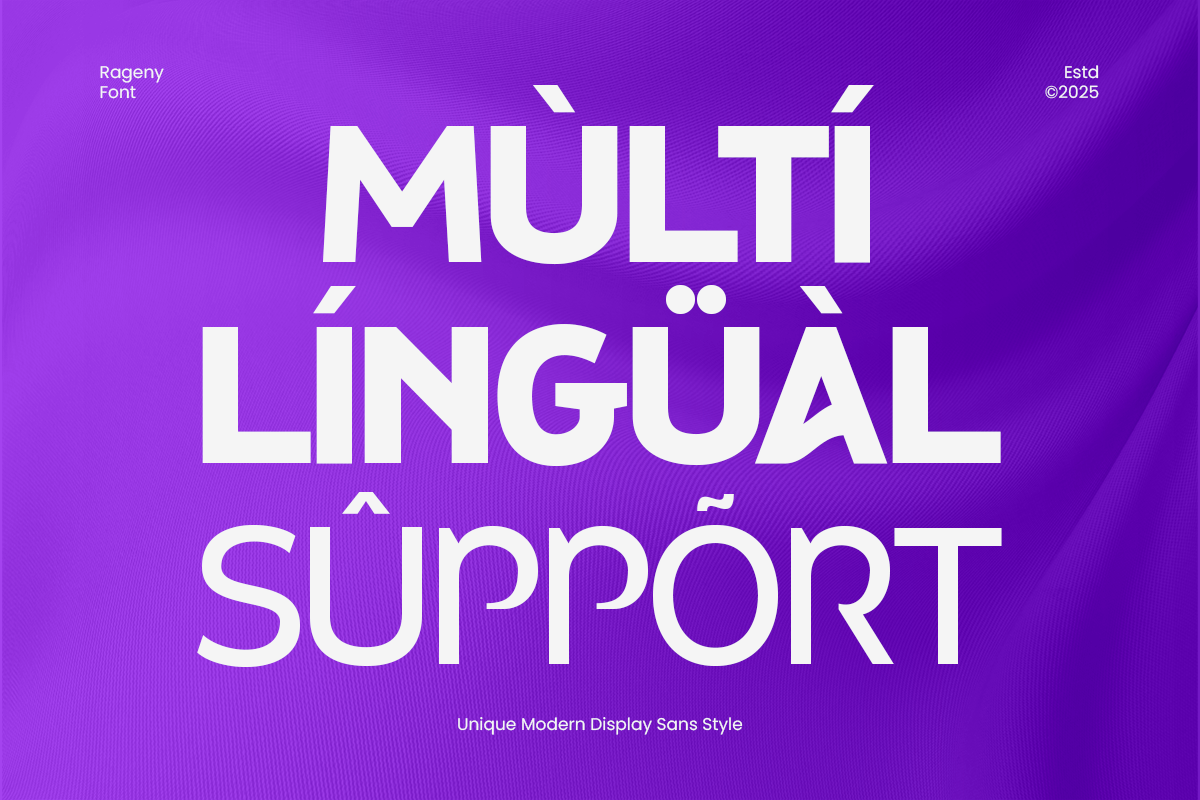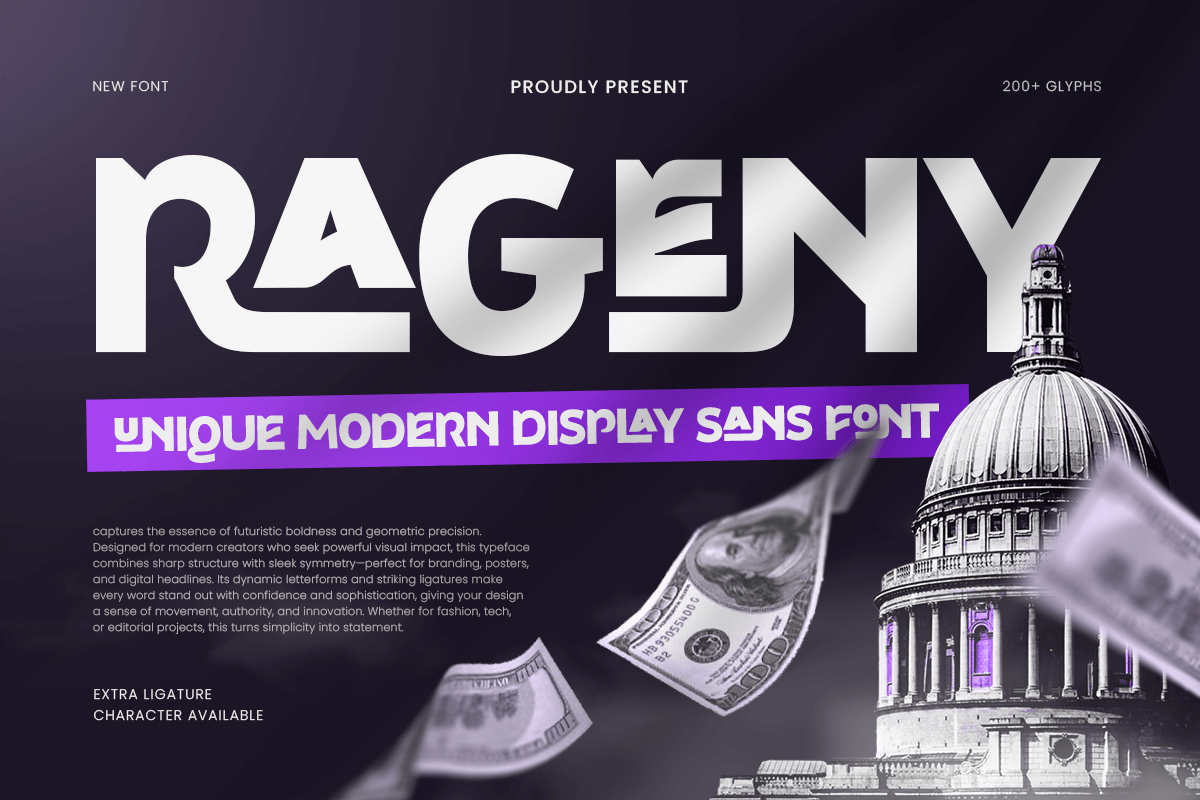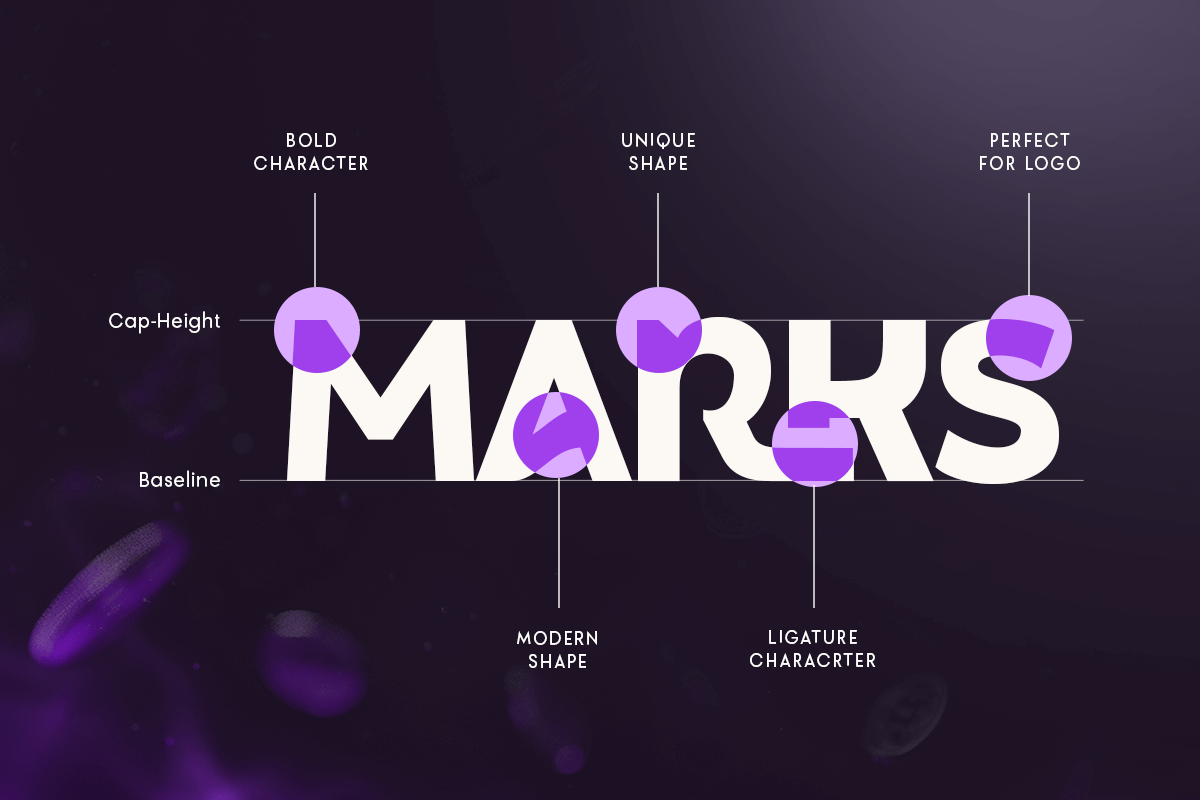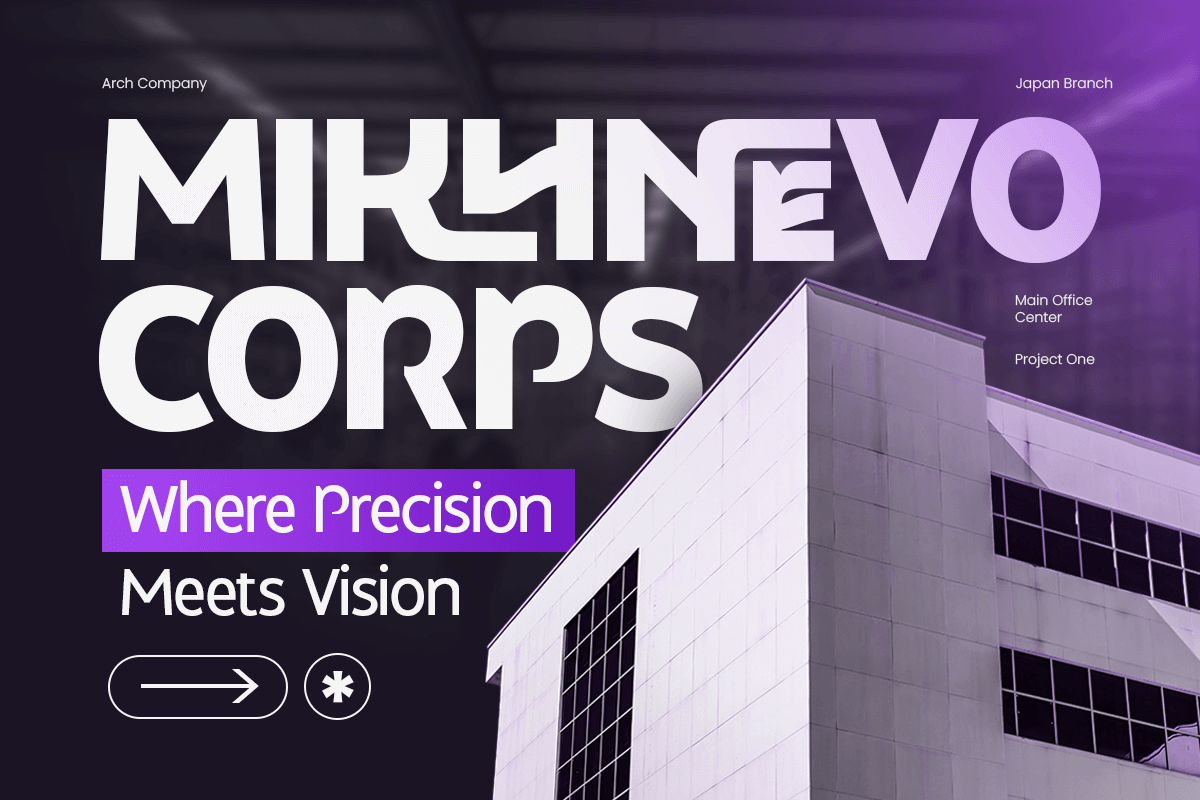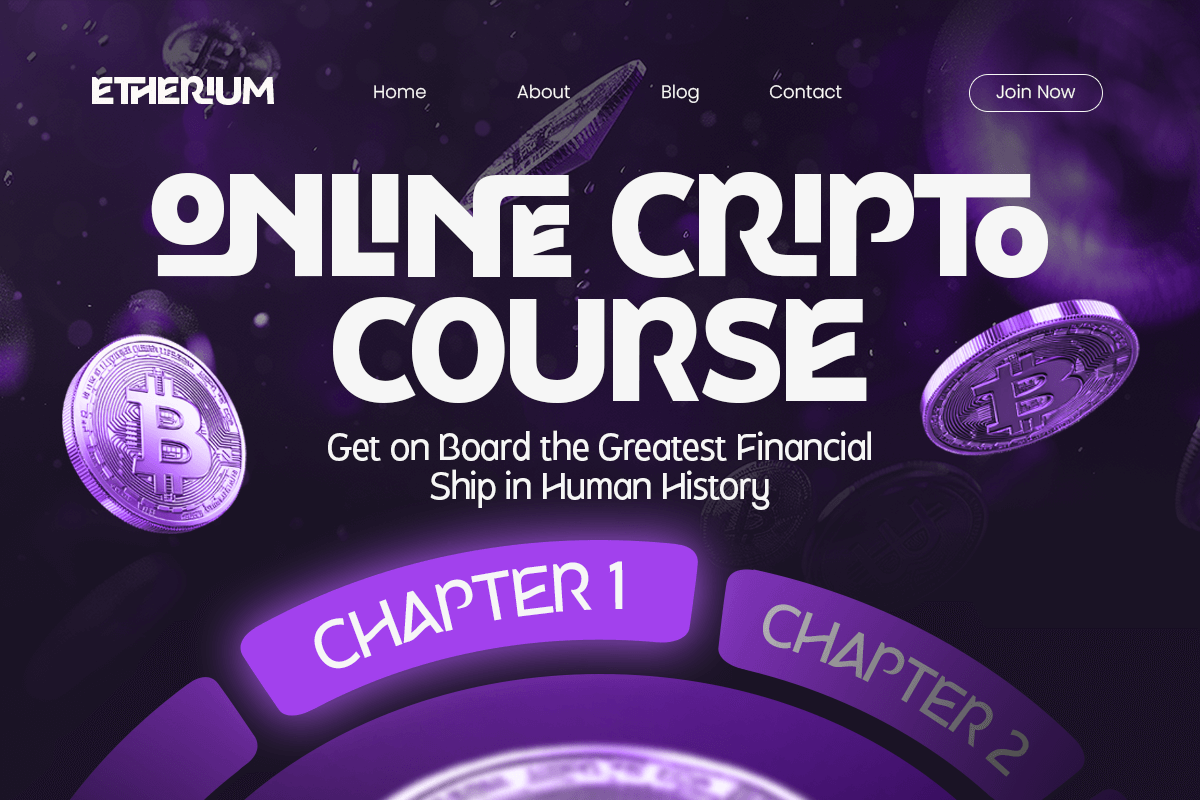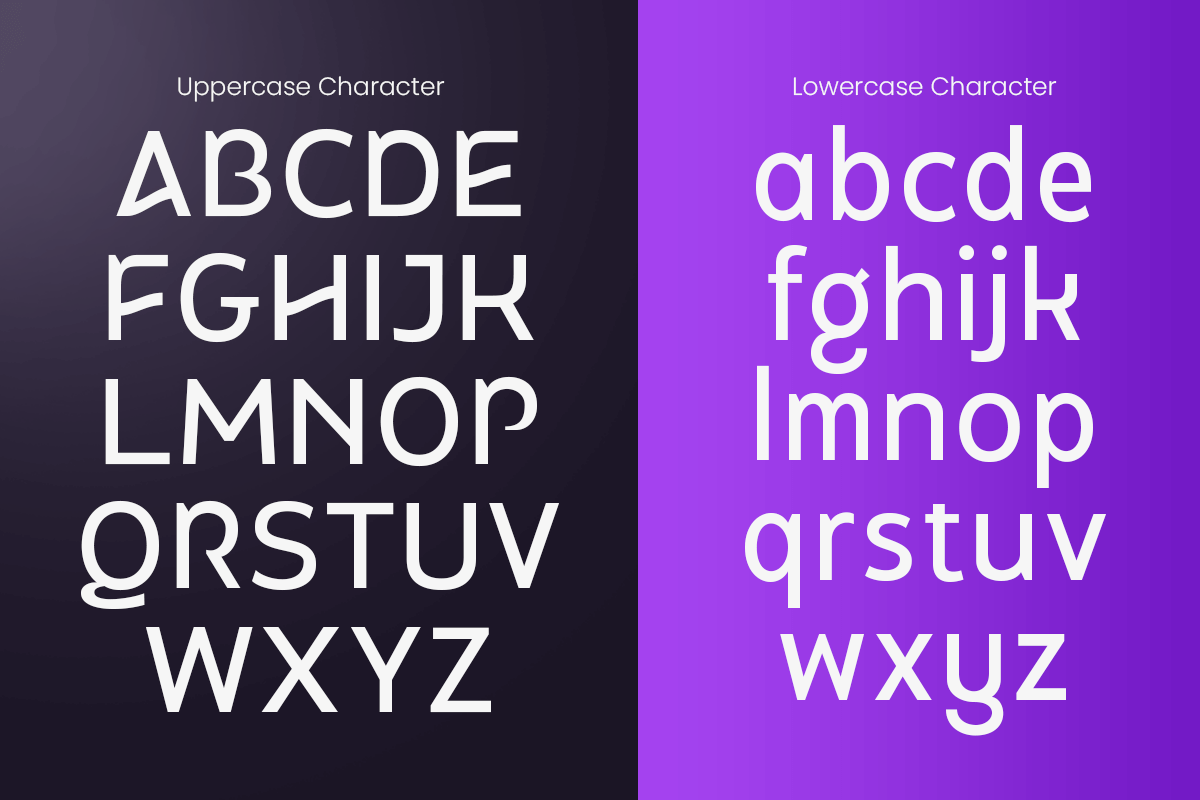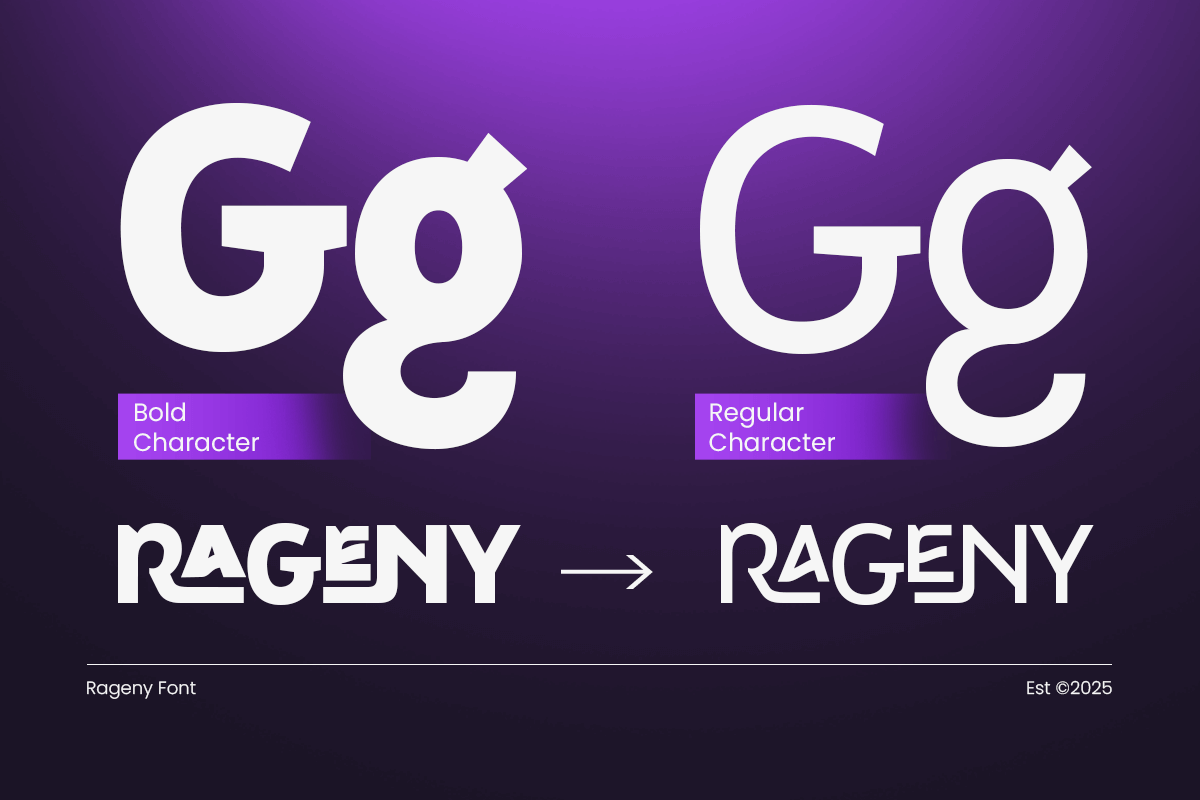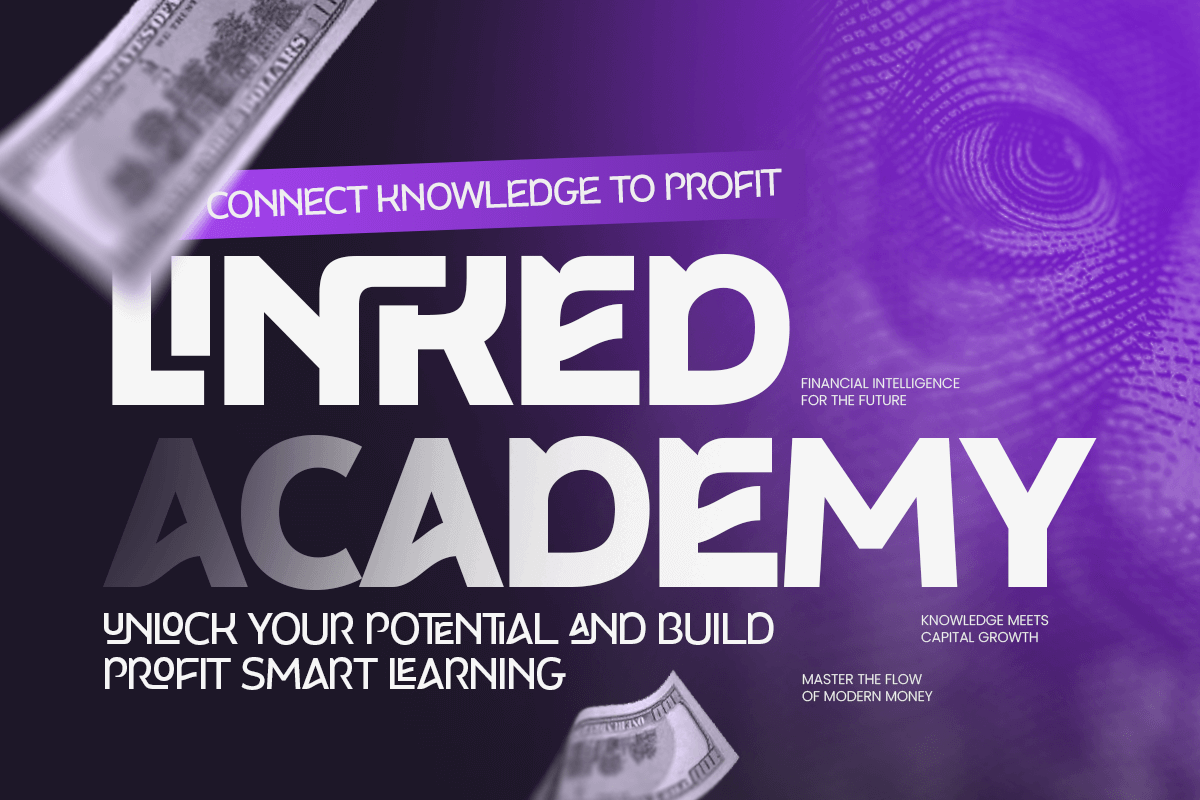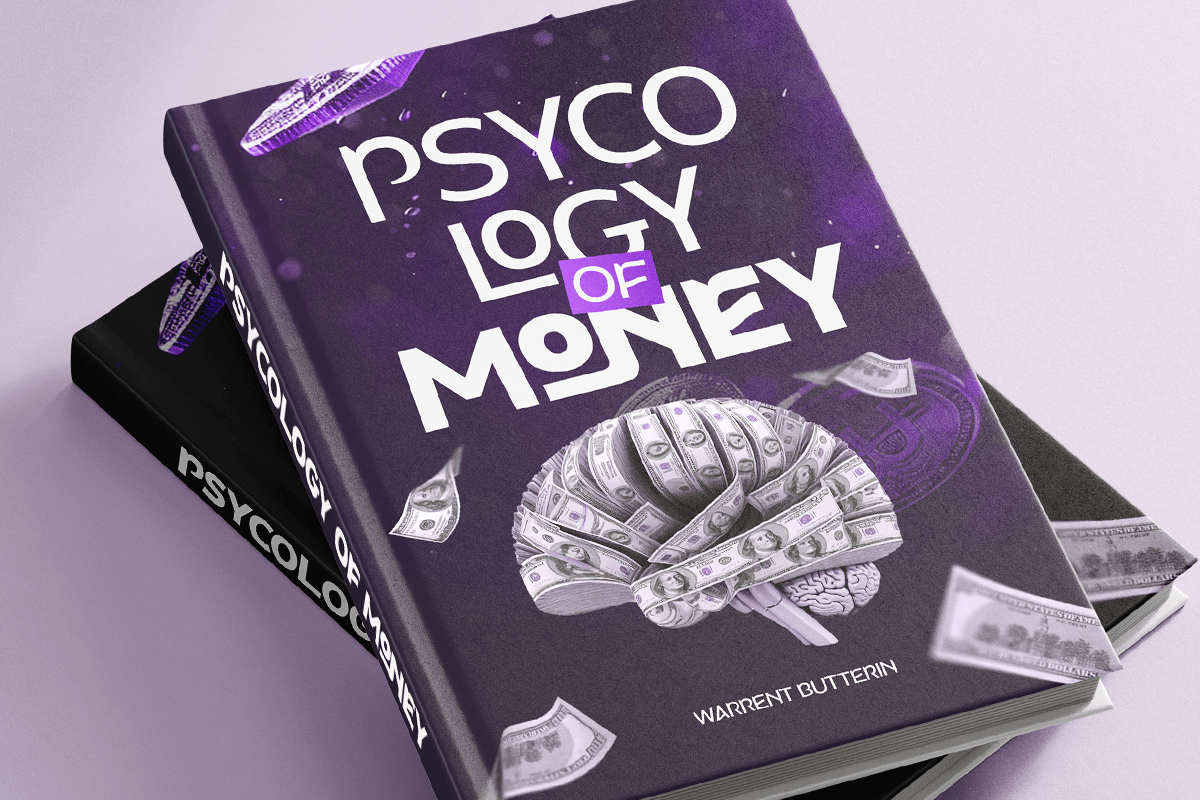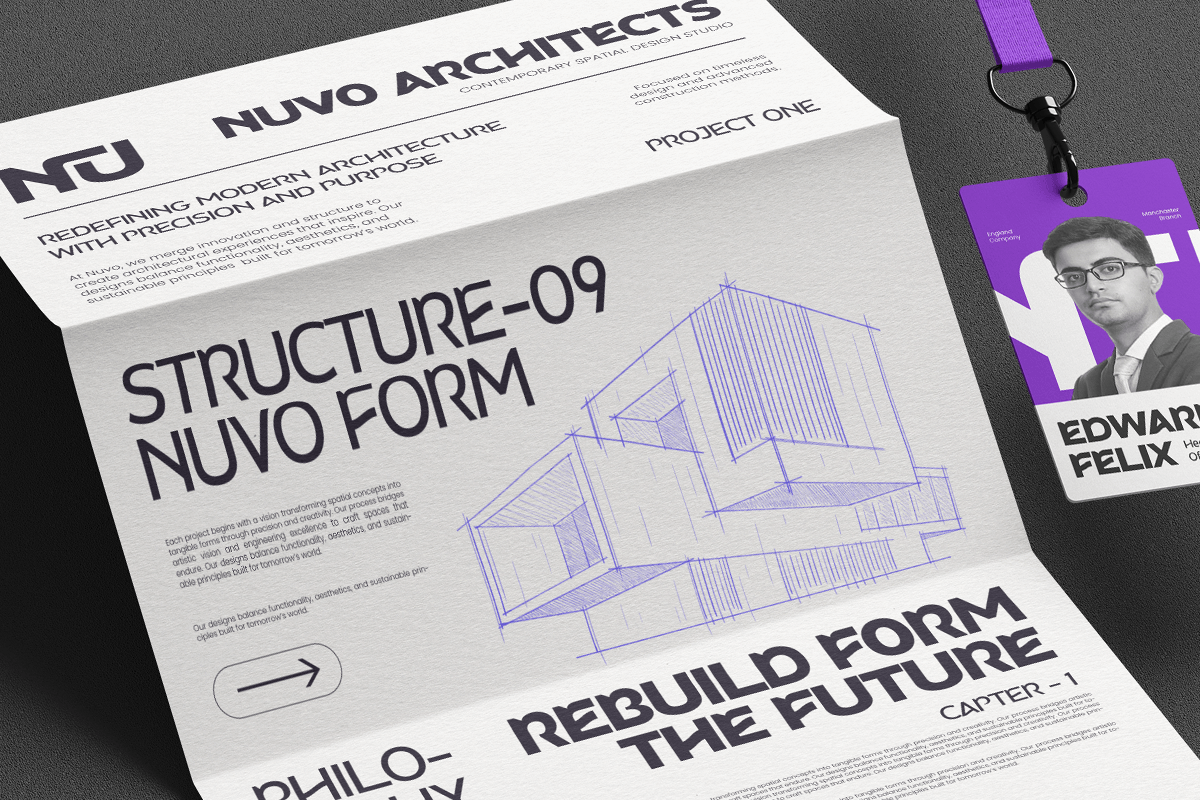
Rageny - Unique Modern Sans Font
Rageny – Unique Modern Display Sans Font
Rageny is a unique modern display sans-serif font designed to deliver clean, bold, and contemporary branding. With its strong structure, smooth curves, and balanced proportions, Rageny is perfect for logos, headlines, posters, packaging, and digital branding that needs a fresh and confident visual identity.
Built for versatility and clarity, Rageny blends modern minimalism with distinctive character shapes, making it ideal for creative studios, startups, fashion brands, and modern businesses. Its display sans style ensures excellent readability while maintaining a stylish and memorable presence across print and digital media.
Rageny – Unique Modern Display Sans Font Features:
* Modern display sans-serif with unique character style
* Ready with Regular and Bold Version inside font files
* Ideal for branding, logos, headlines, and creative layouts
* Uppercase, lowercase, numerals, and punctuation included
* Clean spacing and strong visual balance
* Perfect for modern, bold, and professional design projects
Create a fresh and confident brand look with Rageny – the modern display sans font made for standout design.